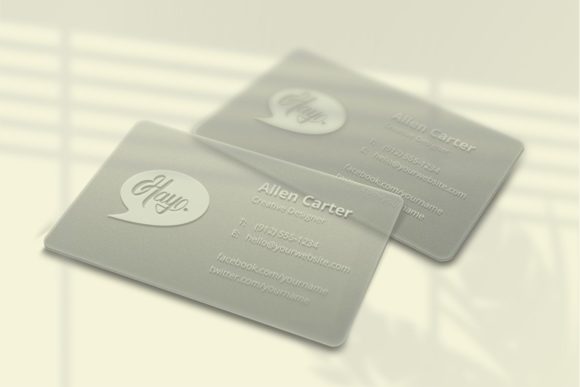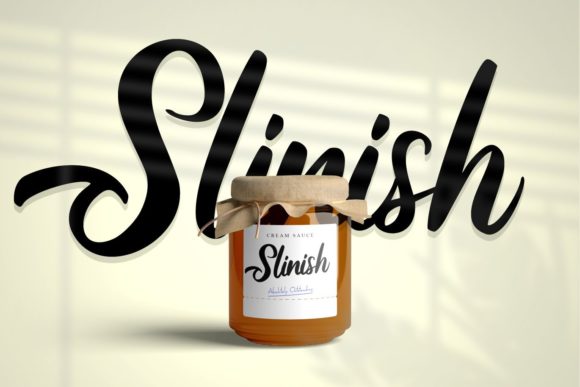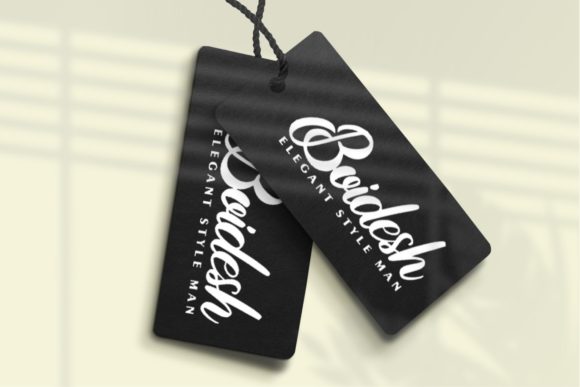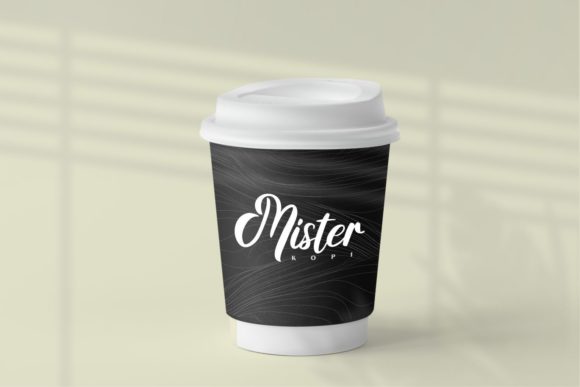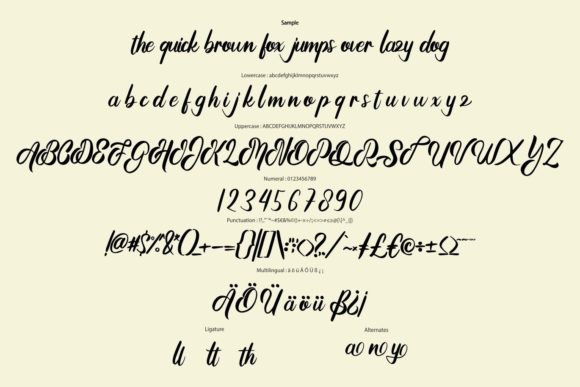
The Designer’s Delight: Anitian Font
I’ll never forget the time I was working on a branding project for a trendy coffee shop. My client wanted a font that exuded confidence, energy, and a dash of nostalgia. I scoured the internet, tried out countless fonts, but nothing seemed quite right. That was until I stumbled upon Anitian Font. 💥
Anitian is a cursive and bold handwritten font, crafted to give your headlines and logotype projects a stylish touch. This font reads as strong, confident, and dynamic and can add tons of nostalgic character to your designs. In this article, I’ll share my experience with Anitian, its features, and how to make the most of it in your designs.
- ✨ Unique Character: Anitian has a distinct personality that sets it apart from other fonts. Its bold and cursive design makes it perfect for headlines and logotypes.
- ✅ Highly Legible: Despite its bold design, Anitian is surprisingly legible, even at smaller sizes.
- 💥 Versatile: This font can be used for a wide range of projects, from branding and advertising to packaging and signage.
While Anitian is an excellent font, it’s not without its quirks. 🤔 Here are a few things to keep in mind:
- ⚠️ Limited Suitability for Body Text: Due to its bold design, Anitian may not be the best choice for body text. It’s best used for headlines and titles.
- ⚠️ Some Letter Combinations: As with any font, some letter combinations may not look perfect. Be sure to test the font with your specific text to ensure the best results.
Anitian font comes with a range of OpenType features and glyphs that can enhance your designs. Here are a few tips on how to access and use them:
The Backstory of Anitian
Anitian was designed by a team of typographers who wanted to create a font that was both bold and elegant. Inspired by classic handwritten fonts, Anitian was crafted to give designers a unique and stylish option for their projects. 💡
Q: What is Anitian font?
Anitian is a cursive and bold handwritten font, designed for use in headlines, logotypes, and other display text.
Q: Is Anitian suitable for body text?
No, Anitian is best used for headlines and titles. Its bold design makes it less suitable for body text.
Q: Does Anitian come with OpenType features?
Yes, Anitian comes with a range of OpenType features, including stylistic alternates and glyphs.